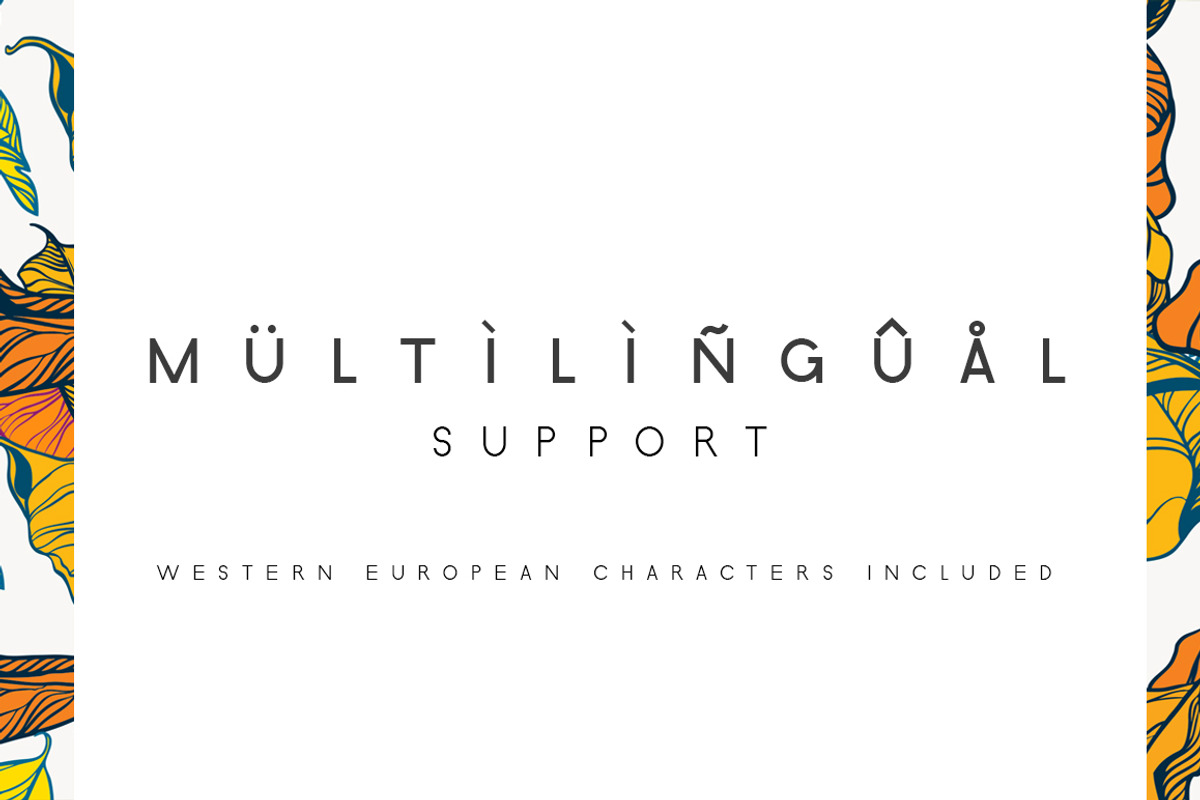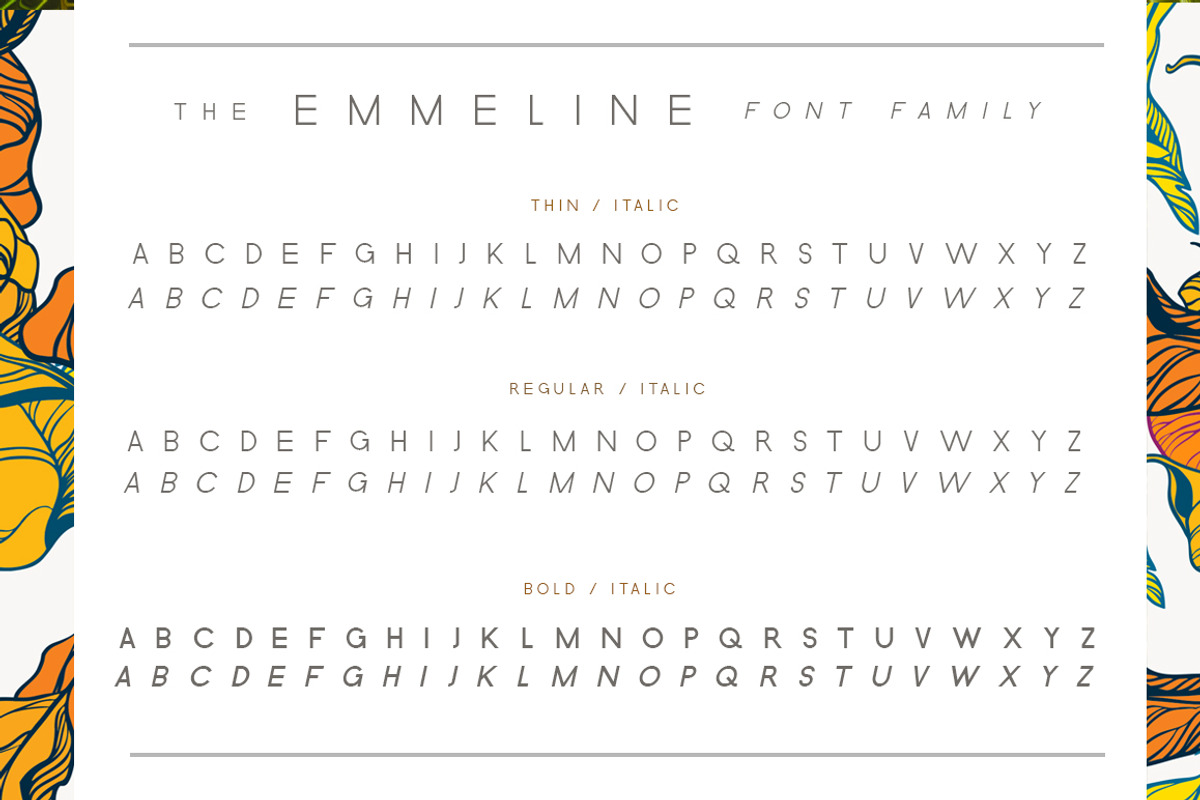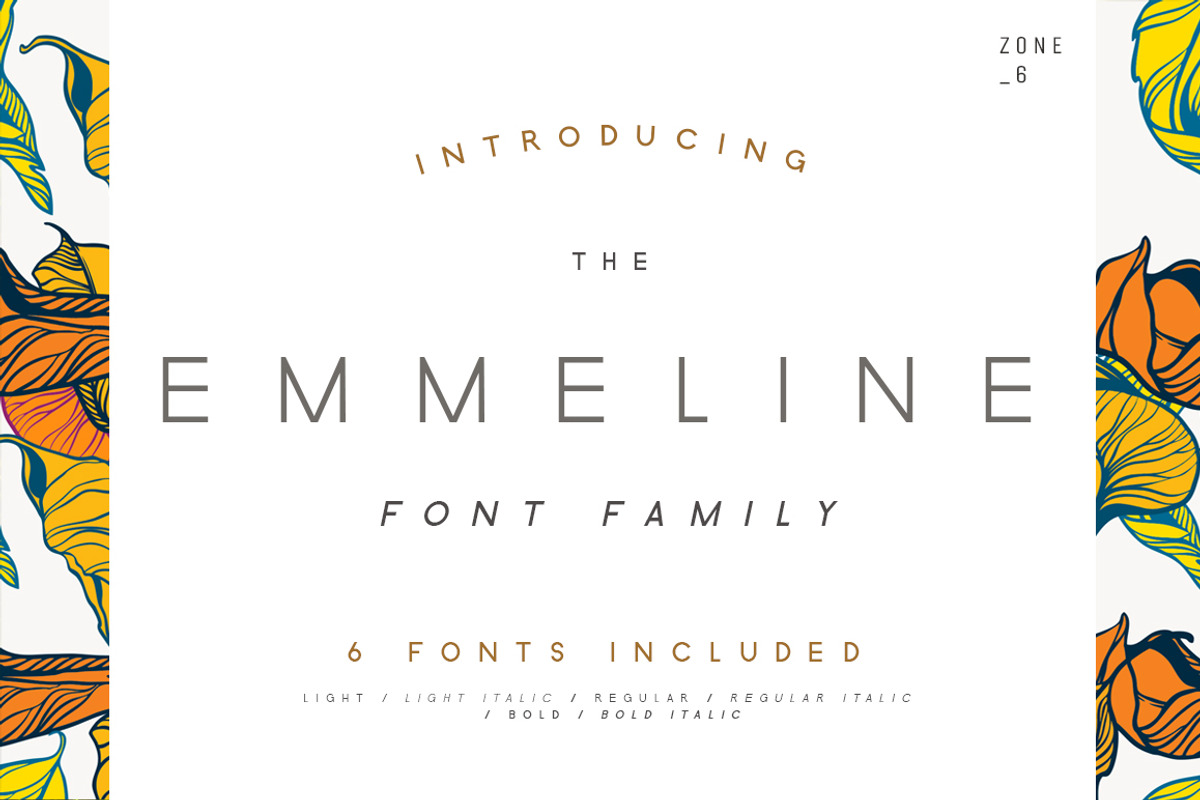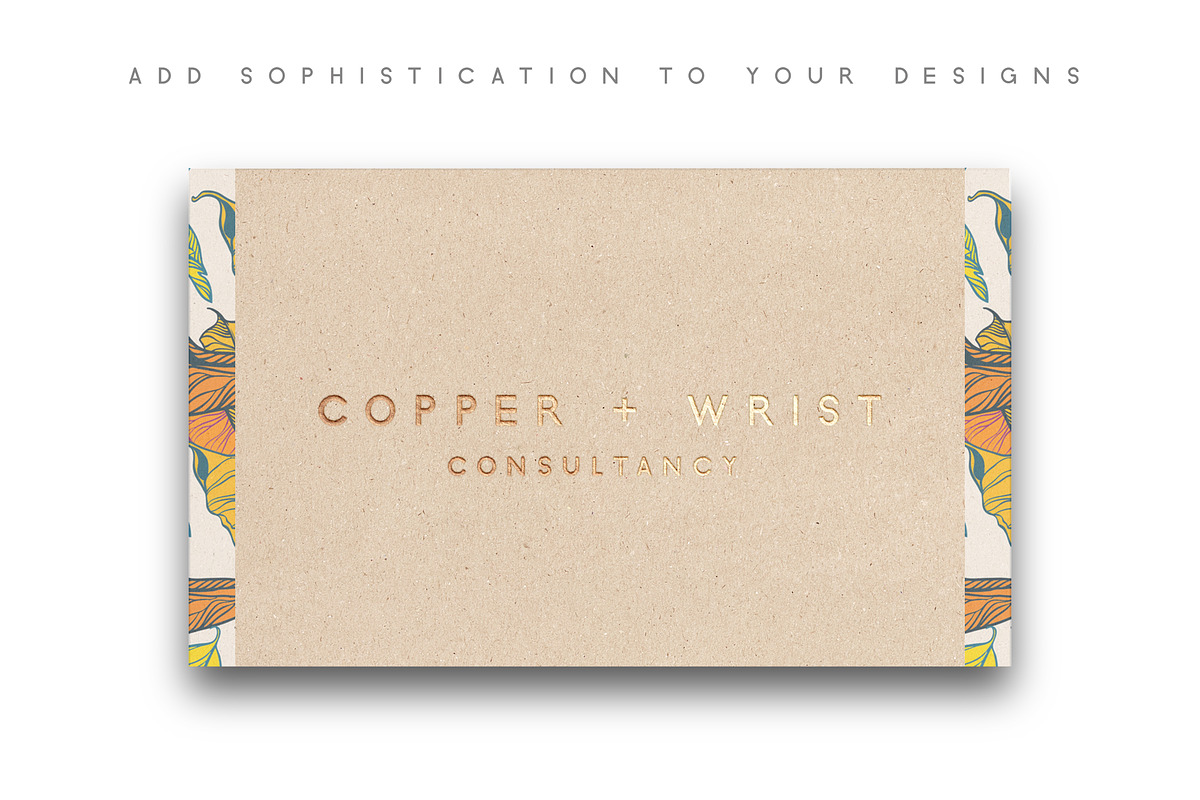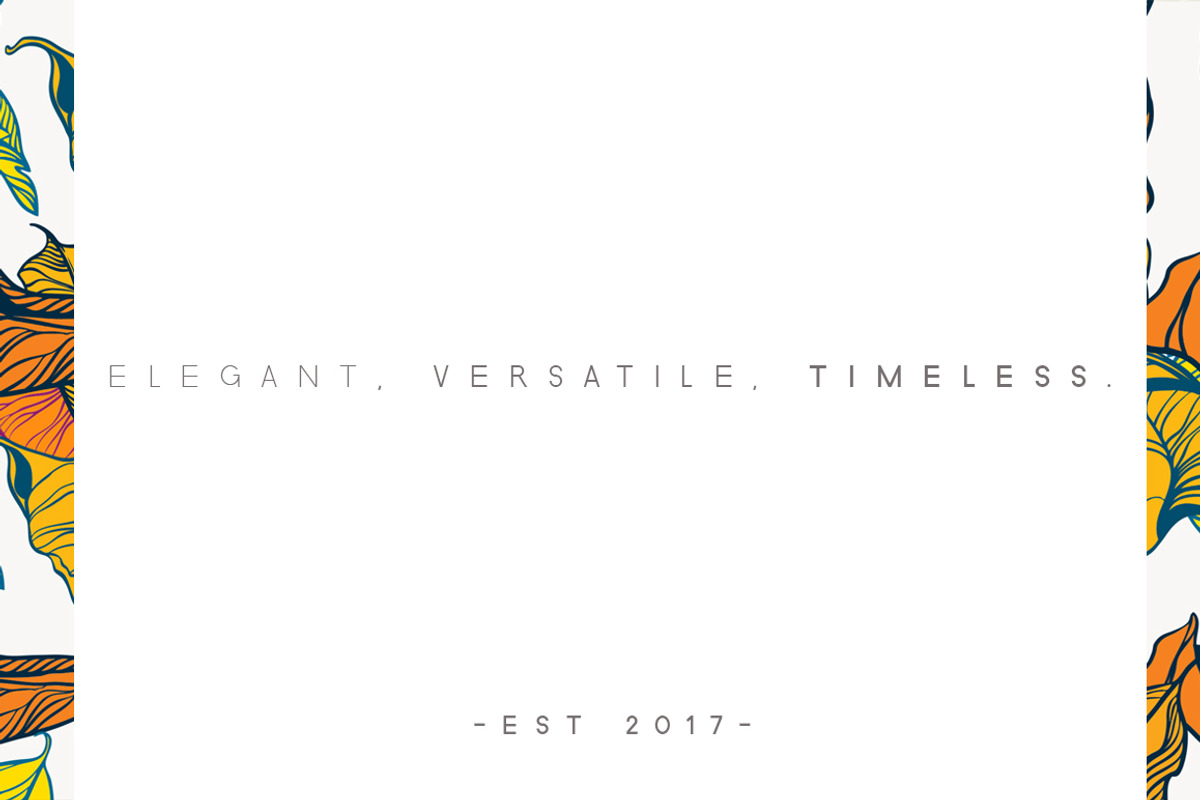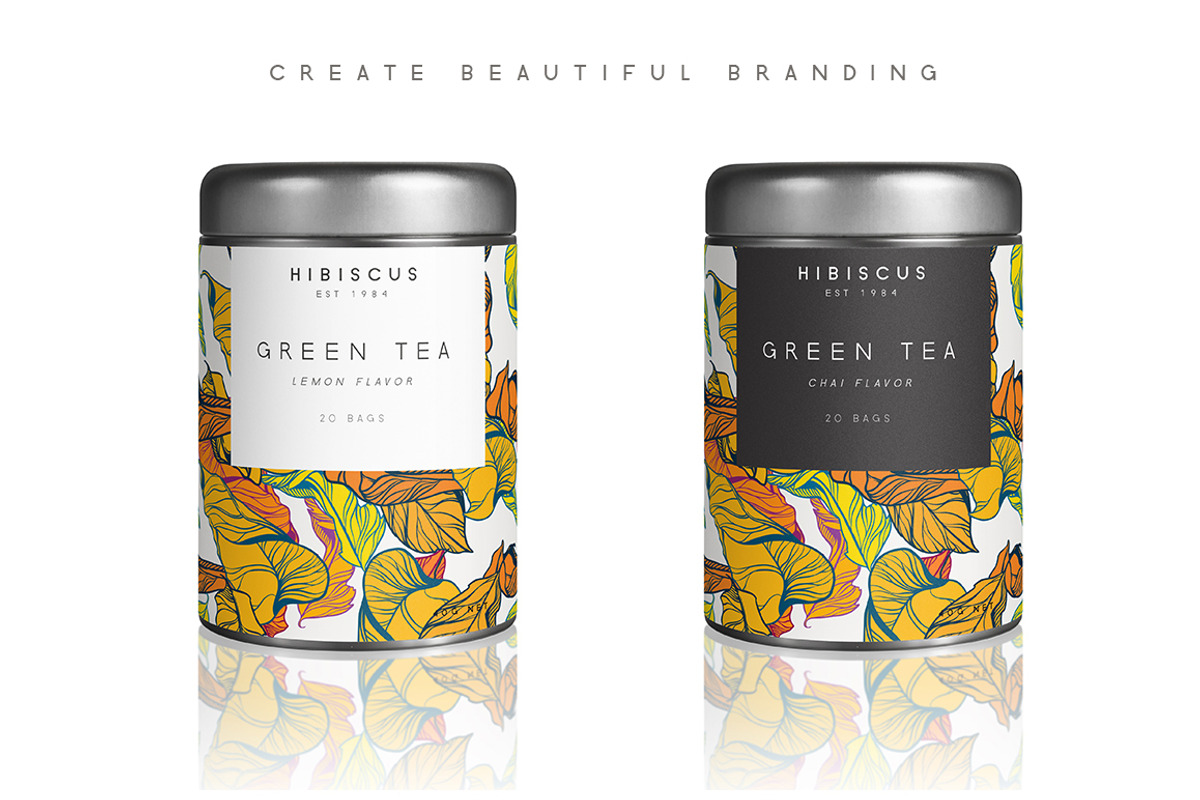
Emmeline Font Family
Emmeline Font Family by Zone 6 is a font selected for branding, posters, packaging, typography.
- Italics for each weight are also included, adding to its opulence.
- Other benefits: Western European characters included Numbers and punctuation included Optimized kerning for aesthetic and highly readable te
Why Emmeline Font Family is worth a look
Emmeline Font Family by Zone 6 fits naturally into Branding, posters, packaging, typography.